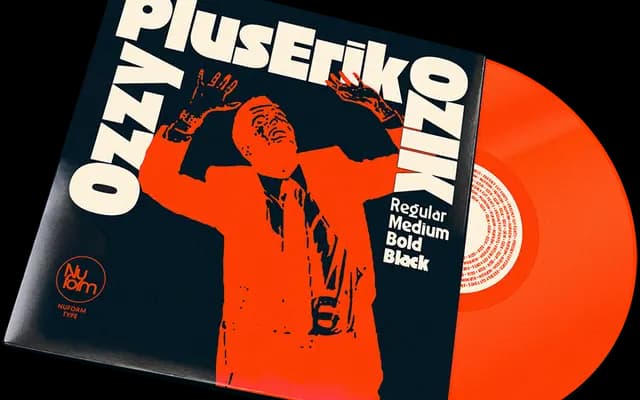
A four-weight display face with rounded counters and clean-cut terminals, drawn from the lettering on Black Sabbath's Vol. 4 album cover.
Built for large settings, Ozik takes its cues from the iconic lettering on Black Sabbath's Vol. 4 record, translating that heavy-metal graphic energy into a usable type family. The four weights run from Regular through to Black, each sharing the same signature rounded counters and crisp terminals that give the face its slightly damaged, geometric character. Best tracked tight and set large in editorial, poster or identity work where a controlled touch of metal is the brief.
Ozik is a headline display face with rounded counters and clean-cut terminals drawn from album lettering, placing it firmly in the geometric display category rather than any text-oriented classification.